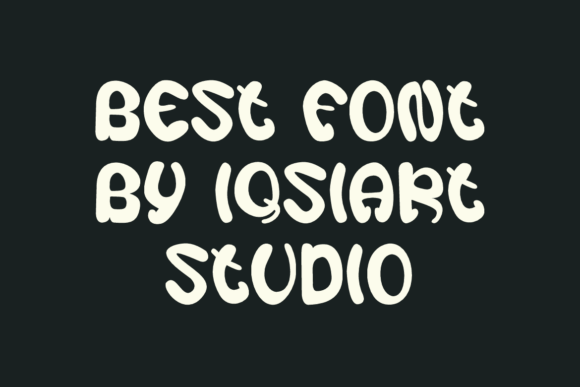
Sandio Fancy Font: The Ultimate Groovy and Playful Typeface for Creative Designs
In the world of typography, fonts play a crucial role in conveying the tone and personality of a design. When it comes to creating eye-catching and engaging visuals, the right font can make all the difference. Sandio Fancy, a groovy and playful typeface, has been making waves in the design community with its retro flair and funky letterforms. In this article, we’ll dive into the world of Sandio Fancy and explore its features, uses, and benefits for creative designs, music posters, retro branding, and bold social media graphics.
What is Sandio Fancy Font?
Sandio Fancy is a unique and vibrant typeface that embodies the spirit of the 1960s and 1970s. With its bold lines, curvaceous shapes, and funky letterforms, this font is perfect for designers looking to add a touch of retro flair to their work. Sandio Fancy is a display font, designed to grab attention and make a statement. Its upbeat personality shines through in every letter, making it an ideal choice for creative designs that require a dash of playfulness and personality.
Key Features of Sandio Fancy Font
- Groovy and Playful Design: Sandio Fancy boasts a unique and eye-catching design that’s perfect for creative designs, music posters, and retro branding.
- Retro Flair: This font’s retro vibe is inspired by the 1960s and 1970s, making it ideal for designs that require a nostalgic touch.
- Funky Letterforms: Each letter in Sandio Fancy is carefully crafted to showcase a funky and playful personality.
- Bold and Eye-Catching: This font is designed to grab attention and make a statement, making it perfect for bold social media graphics and eye-catching posters.
Uses of Sandio Fancy Font
Sandio Fancy is a versatile font that can be used in a variety of creative projects. Here are some of the most popular uses of this amazing typeface:
- Music Posters: Sandio Fancy is perfect for music posters, festival flyers, and concert announcements that require a bold and eye-catching design.
- Retro Branding: This font’s retro flair makes it an ideal choice for rebranding projects that require a nostalgic touch.
- Social Media Graphics: Sandio Fancy is perfect for creating bold and engaging social media graphics that require a dash of personality.
- Creative Designs: This font can be used in a variety of creative designs, including brochures, posters, and flyers that require a unique and eye-catching typography.
Benefits of Using Sandio Fancy Font
Using Sandio Fancy font in your designs comes with a range of benefits. Here are some of the most significant advantages of this amazing typeface:
- Unique and Eye-Catching Design: Sandio Fancy’s unique design ensures that your designs stand out from the crowd and grab attention.
- Time-Saving: This font is easy to use and doesn’t require any additional design elements, saving you time and effort.
- Versatile: Sandio Fancy can be used in a variety of creative projects, making it a valuable addition to your font library.
- Upbeat Personality: This font’s upbeat personality shines through in every letter, adding a touch of playfulness and fun to your designs.
Tips for Using Sandio Fancy Font
To get the most out of Sandio Fancy font, here are some tips to keep in mind:
- Use it Boldly: Sandio Fancy is a bold font, so don’t be afraid to use it in large sizes to make a statement.
- Pair it with Simple Fonts: Pair Sandio Fancy with simple fonts to create a striking contrast and add visual interest to your designs.
- Experiment with Colors: This font looks great in bright and bold colors, so don’t be afraid to experiment and find the perfect color scheme for your design.
- Keep it Simple: While Sandio Fancy is a playful font, it’s essential to keep your design simple and easy to read to ensure maximum impact.
Sandio Fancy font is an amazing typeface that’s perfect for creative designs, music posters, retro branding, and bold social media graphics. Its groovy and playful design, retro flair, and funky letterforms make it an ideal choice for designers looking to add a touch of personality to their work. With its versatility, ease of use, and upbeat personality, Sandio Fancy is a valuable addition to any font library.